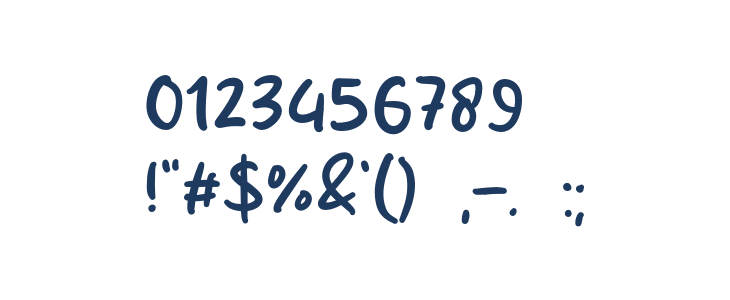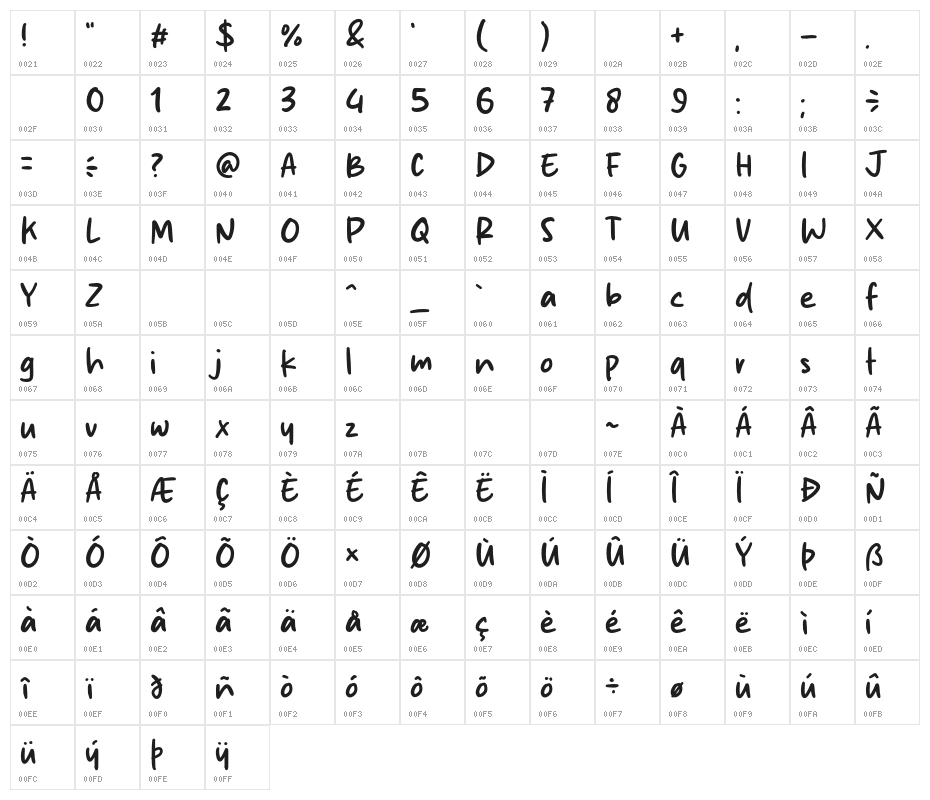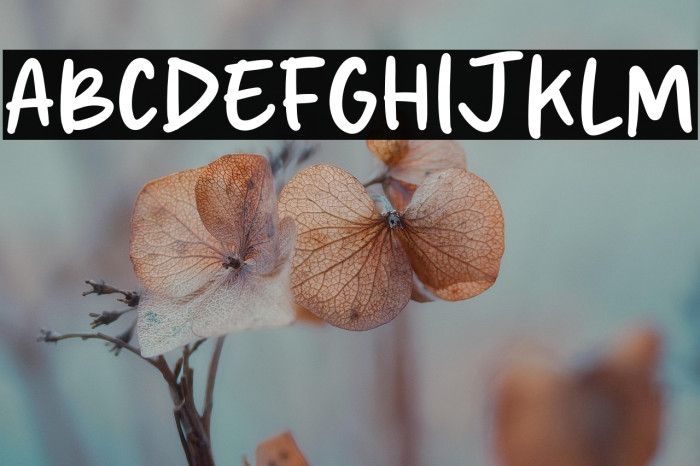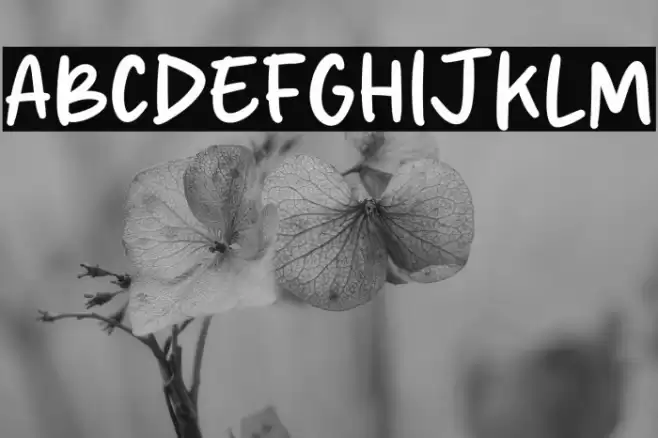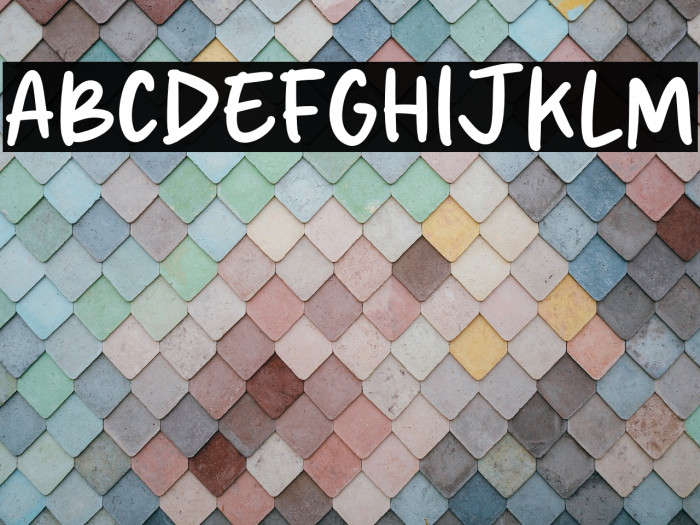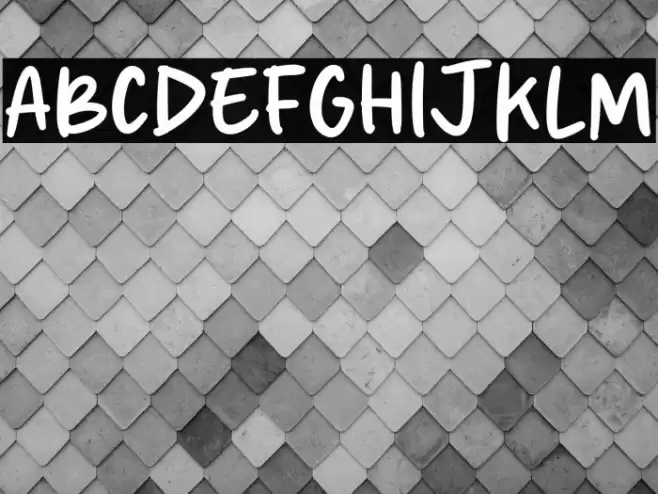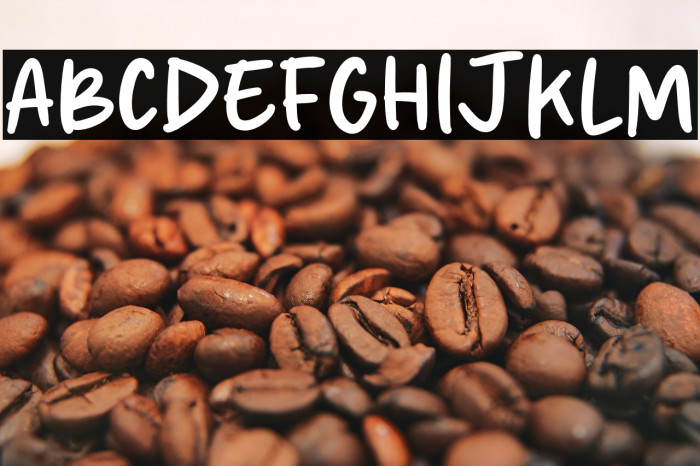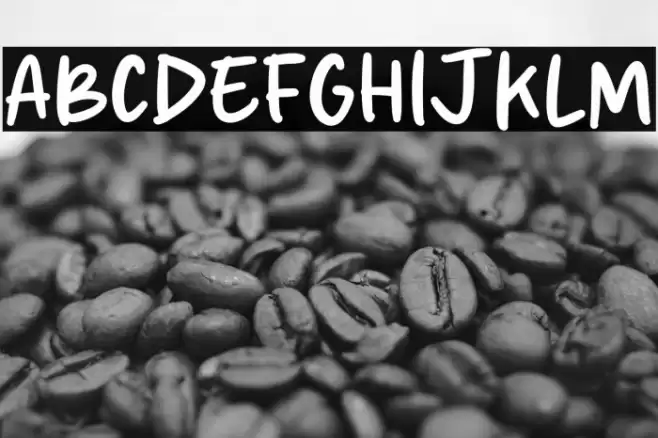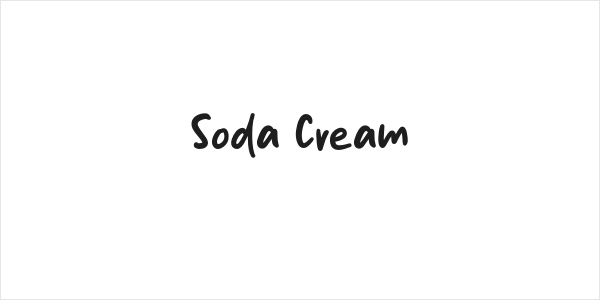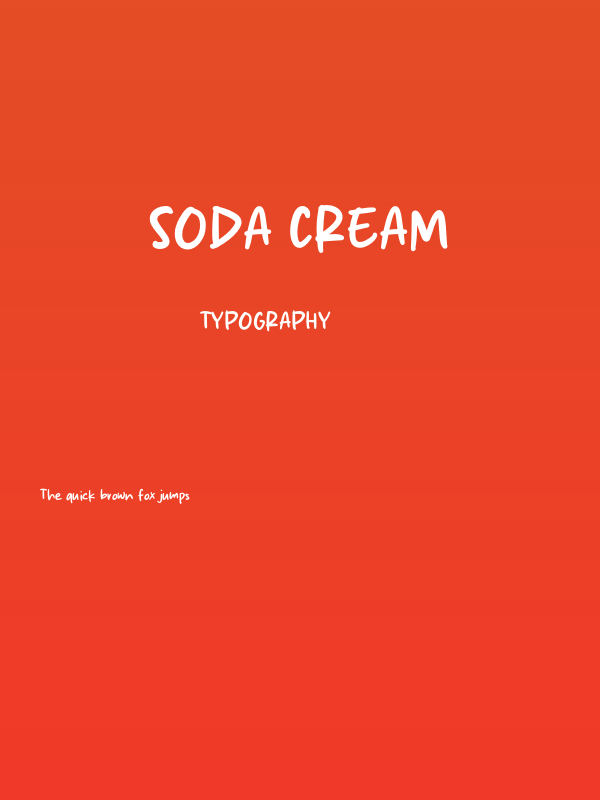
Soda Cream Font
Soda Cream Description
This font exudes a playful and casual vibe with its handwritten style. The letters are bold and rounded, giving a friendly and approachable appearance. The strokes are consistent in thickness, providing a uniform look across all characters. The uppercase and lowercase letters maintain a cohesive style, while the numerals and special characters are designed to match the overall aesthetic. This font is perfect for projects that require a personal touch, such as invitations, greeting cards, or playful branding.
| Proposed Projects | Ideal for greeting cards, playful branding, and invitations. |